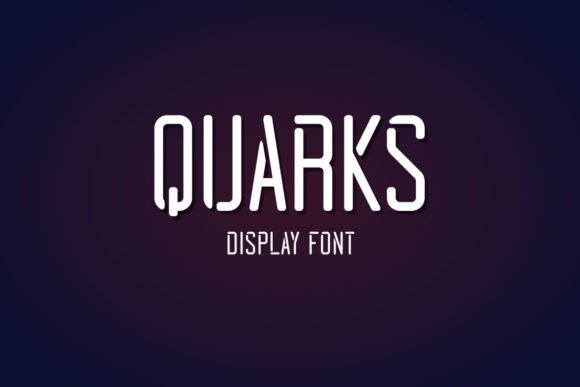
Are you tired of your designs looking dull and uninspired? Introducing Quarks Font, the ultimate solution for captivating designs that will leave a lasting impression. This modern and clean display font is a game-changer, perfect for making your words stand out in a sea of mediocrity.
Quarks Font is like a vibrant splash of color in a world of black and white. Its eye-catching curves and sharp angles are designed to grab attention and keep it. Whether you're creating posters, book titles, or social media graphics, this font will elevate your designs to the next level.
But it's not just about aesthetics. Quarks Font is also incredibly versatile, making it perfect for a wide range of projects. From elegant wedding invitations to bold advertising campaigns, this font can handle it all with grace and style.